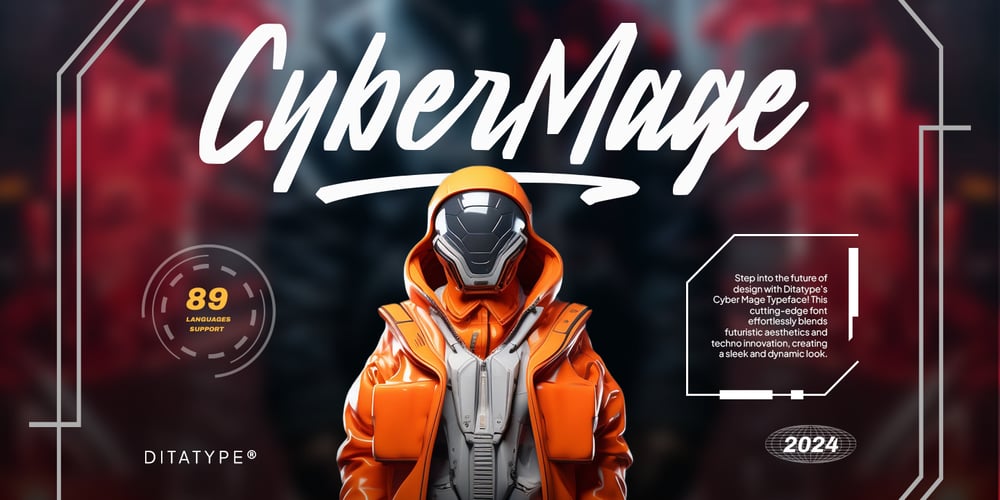
Cyber Mage Font Family was designed by Donis Miftahudin and published by Ditatype. Cyber Mage contains 1 styles and family package options. Cyber Mage is a mesmerizing script font that seamlessly merges futuristic and techno styles in each meticulously crafted letter. The perfect choice for designers looking to infuse their work with a sense of forward-thinking innovation. With equal proportions and low contrast, this font exudes a sense of balance and harmony. Every stroke of Cyber Mage is imbued with futuristic elements, inspired by the sleek lines and dynamic energy of technological advancements. From the gentle curves to the sharp angles, each letter evokes a sense of innovation and modernity, while maintaining the fluidity and elegance of a script font. The fusion of futuristic and techno styles in Cyber Mage creates a unique visual language that captures the imagination and commands attention. In addition, enjoy the features here.Features: Ligatures Stylistic Sets Multilingual Supports PUA Encoded Numerals and Punctuations Cyber Mage fits in headlines, logos, posters, flyers, branding materials, greeting cards, print media, editorial layouts, and many more designs. Find out more ways to use this font by taking a look at the font preview.Thanks for purchasing our fonts. Hopefully, you have a great time using our font. Feel free to contact us anytime for further information or when you have trouble with the font. Thanks a lot and happy designing.